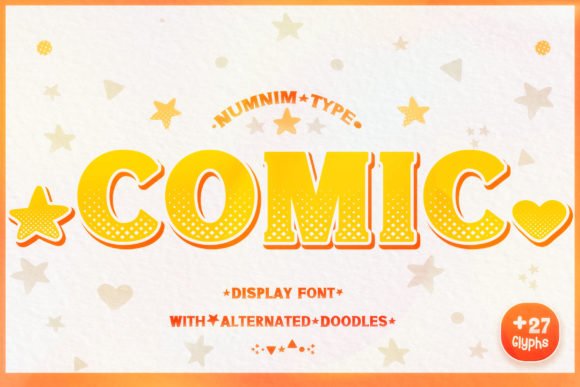
Bring a Touch of Vintage Whimsy to Your Designs
Remember the moment when you stumbled upon the perfect font to elevate your craft project? The thrill of combining creative elements to create something truly unique? For designers and crafters alike, finding the right font can be a game-changer. That’s where the Comic Font comes in – a thick and cool lettered display font that adds a vintage charm to any project.
This distinctive font features comic halftone on each character, giving it a unique, hand-drawn look. Whether you’re working on a graphic novel, a handmade card, or a digital design, the Comic Font is sure to bring a touch of personality to your work. Its versatility and nostalgic appeal make it a valuable asset for designers who want to add a vintage twist to their projects.
Comic Font Review
Overall, I’d say Comic Font is a fun and playful addition to any project. It works well in situations where you want to add a lighthearted or humorous touch. ✨ The rounded edges and cartoonish feel can be quite effective in creating a friendly atmosphere.
Here are some specific things that work well:
- It’s great for creating a sense of nostalgia, especially when used in retro-style designs.
- The font is highly legible, making it easy to read even at smaller sizes.
- It’s a versatile font that can be used for a wide range of projects, from posters to social media graphics.
However, there are some limitations to keep in mind:
- It can look a bit childish or immature in certain contexts, which may not be suitable for all projects.
- The font may not be as effective when used for body text or large blocks of text, as it can be overwhelming.
- It may not be suitable for formal or professional designs, where a more serious tone is desired.
Overall, Comic Font is a fun and playful font that can add a unique touch to your designs. Just be mindful of its limitations and use it in situations where it will be most effective.
The Comic Font is ideal for creating playful and informal designs, such as:
- Children’s books and educational materials
- Humorous posters and flyers
- Social media graphics and memes
Remember to use the Comic Font sparingly and in moderation, as it can be overwhelming if overused.